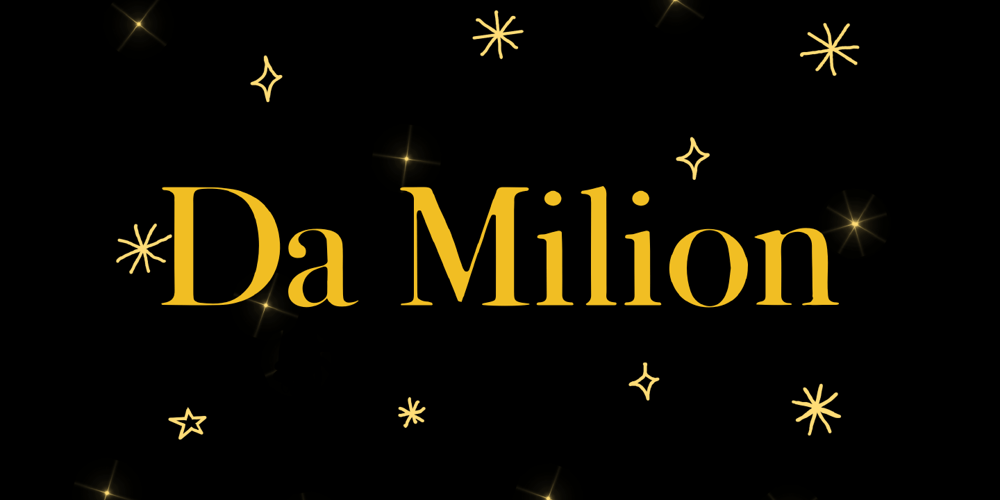
Da Milion
Da Milion font
Da Milion Font Family was designed by Khair Unnas and published by Khaiuns. Da Milion contains 2 styles and family package options. In the realm of serif fonts, “Da Milion” emerges with unparalleled uniqueness. This font is not merely a collection of letters but a narrative conveyed softly through the strokes of sketch-like textures adorning each character. Every stroke and texture adds a new dimension, turning each vowel into a dance of life across the pages.With the seamlessly integrated sketches, “Da Milion” delivers a profound visual experience. Every accent and point comes to life, creating text that is not just read but felt. Experience the gentleness of every serif curve crafted through an artistic hand, as if sharing unspoken stories with every letter.”Da Milion” is not just a font; it’s an art form that speaks through the silent vocals of sketch strokes. Perfect for projects requiring character and warmth, it provides space for designers and writers to express their creativity with a touch so natural. Enjoy a new adventure with “Da Milion” in every piece of your work!